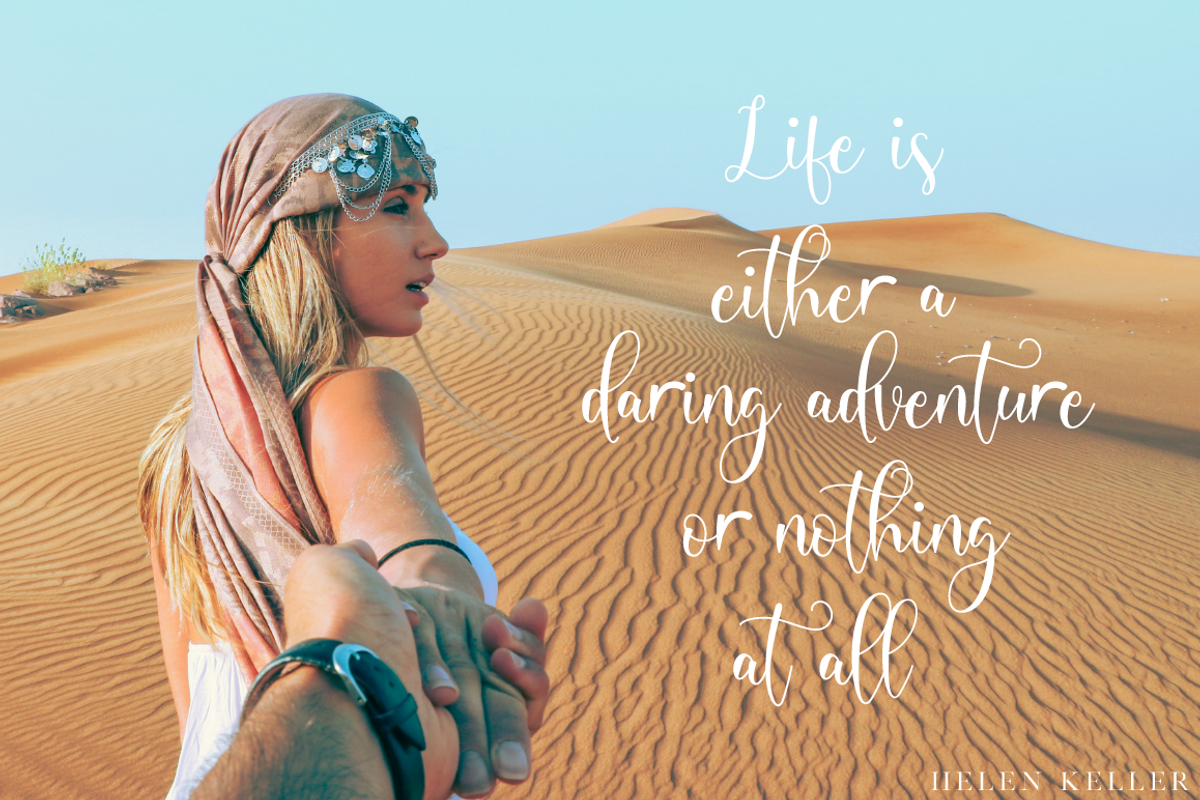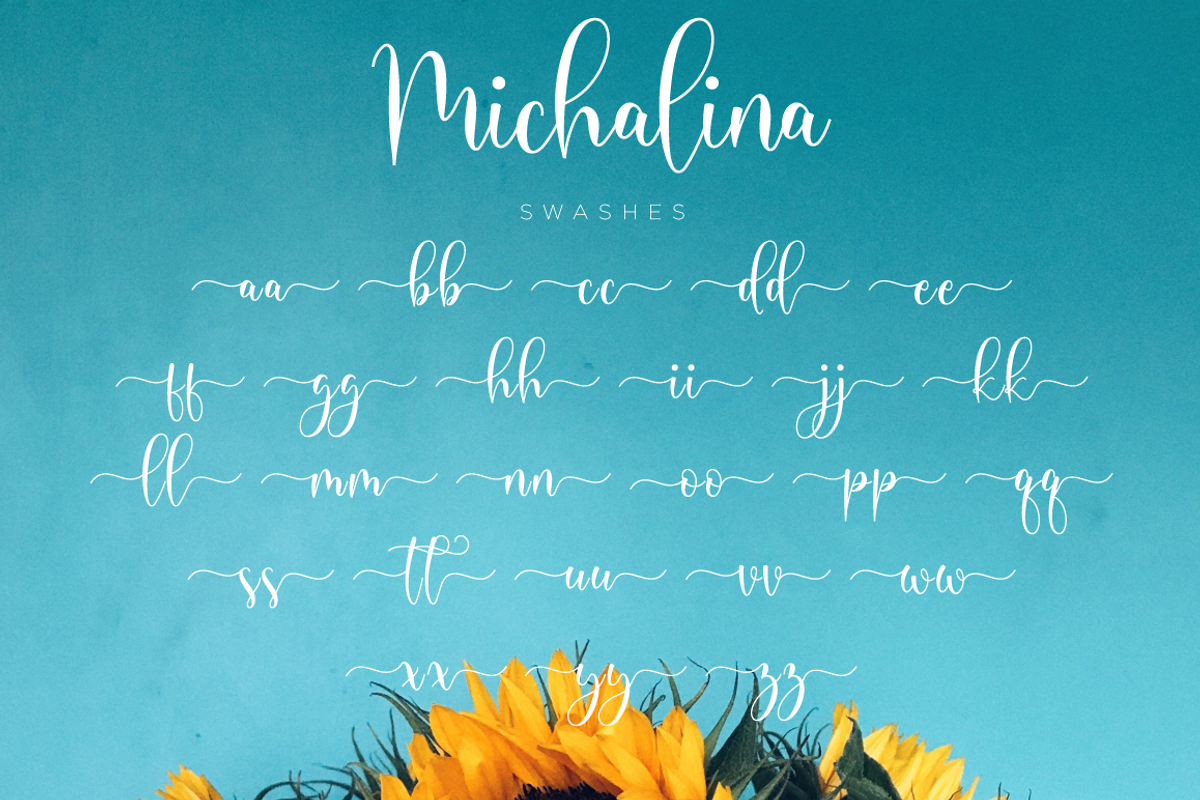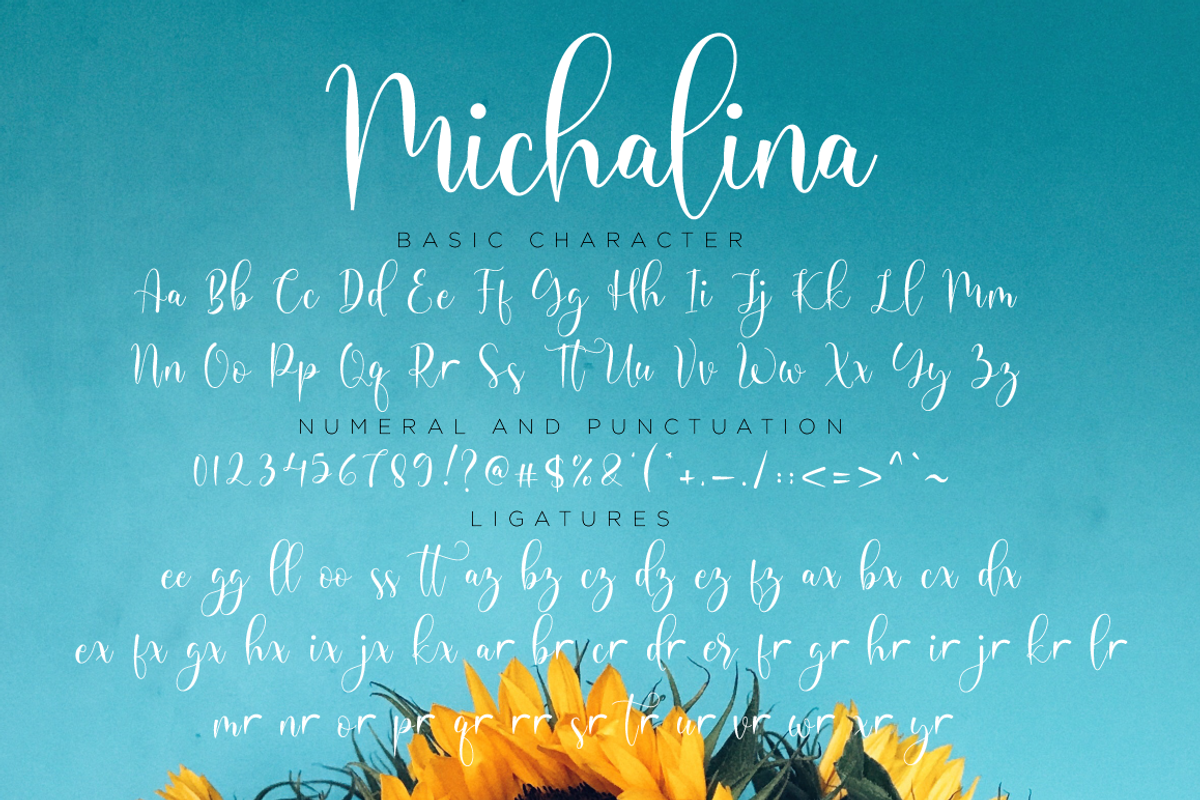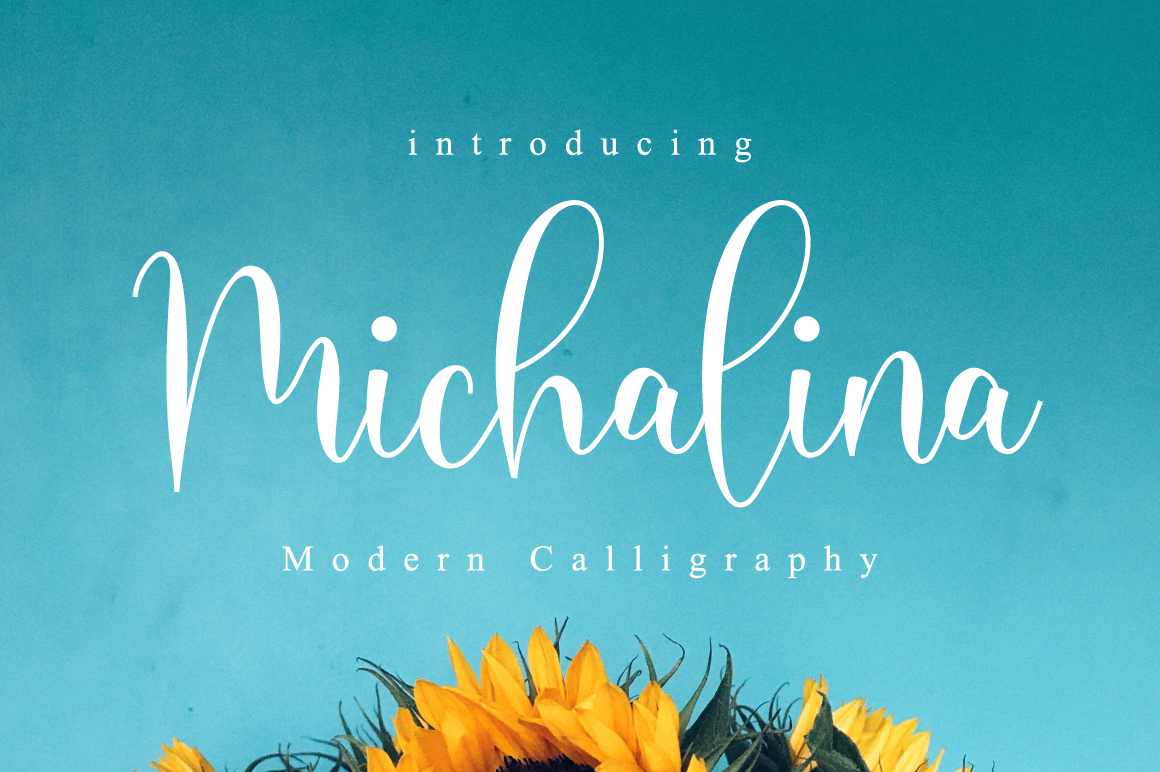
Michalina // Elegant Font Script
Michalina Script is a fun and cool script with a relaxed summer vibe. Get inspired by its unique charm, and turn any design project into a true standout!
Each Font Has:
- Modern Handwritten Font
- Beautiful Swash (Ending tail)
- Beautiful Titling (Beginning tail)
- Special Ligatures